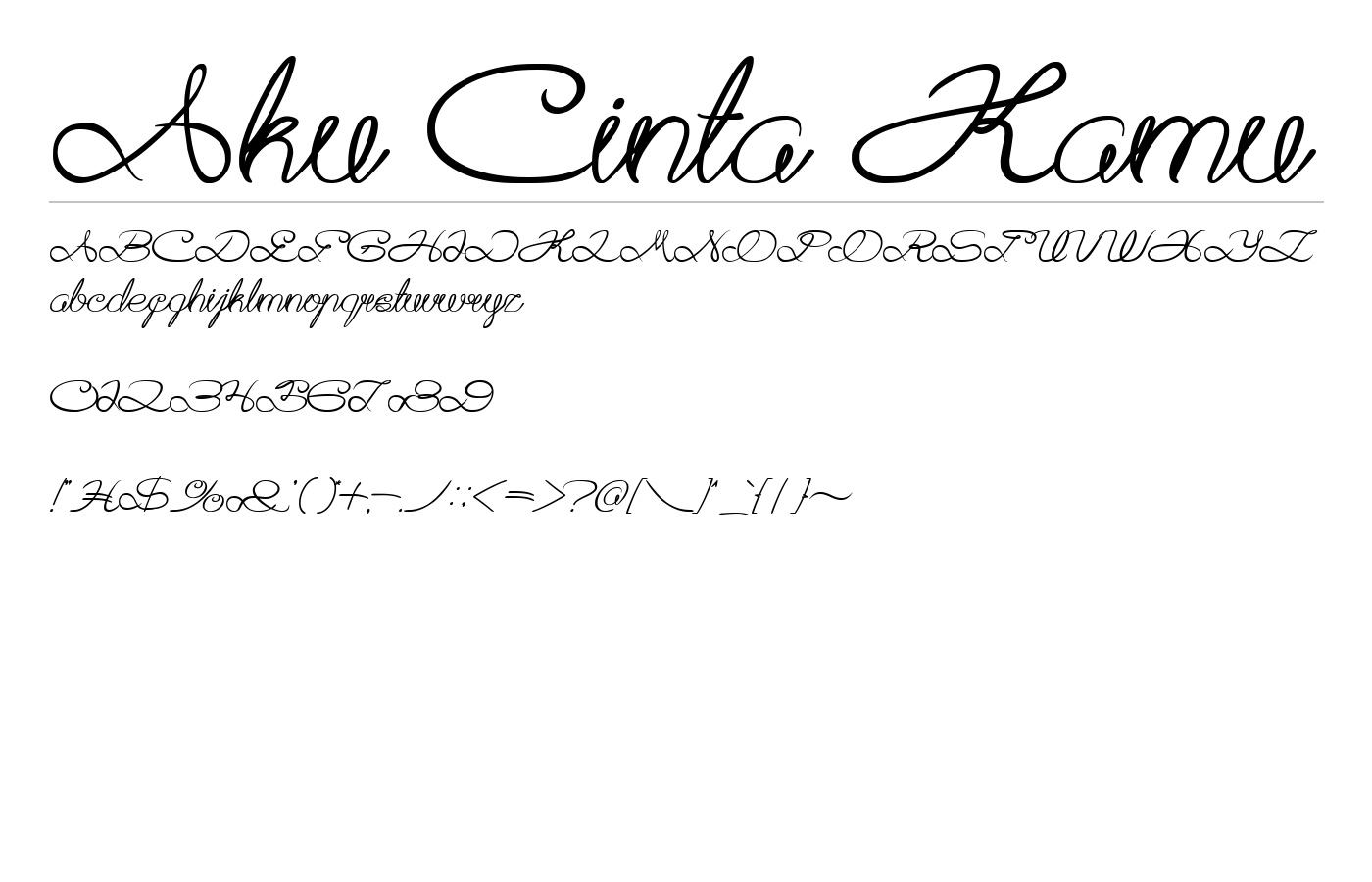
Aku Cinta Kamu is an elegant script font that features delicate, flowing strokes with a smooth, handwritten feel. Its thin lines and graceful loops make it perfect for romantic or artistic designs, adding a touch of sophistication and warmth. This font is ideal for invitations, greeting cards, fashion branding, and any project that seeks a personal, stylish handwriting flair.
Aku Cinta Kamu Font
About Aku Cinta Kamu Font